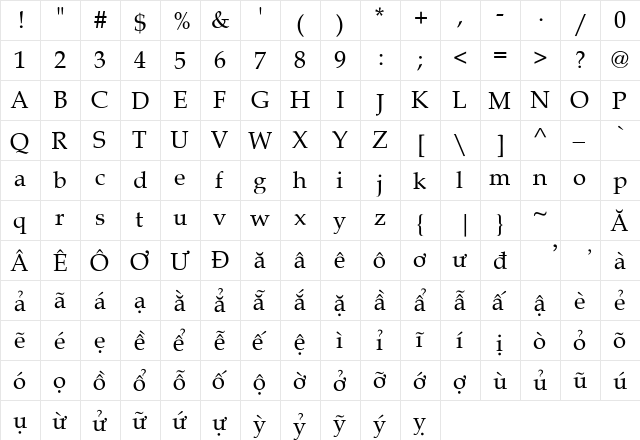
.VnBook-Antiqua Regular
Design Context for .VnBook-Antiqua Typeface
.VnBook-Antiqua offers clean, dependable letterforms without strong stylistic allegiance, making it a practical choice for designers who need flexibility.